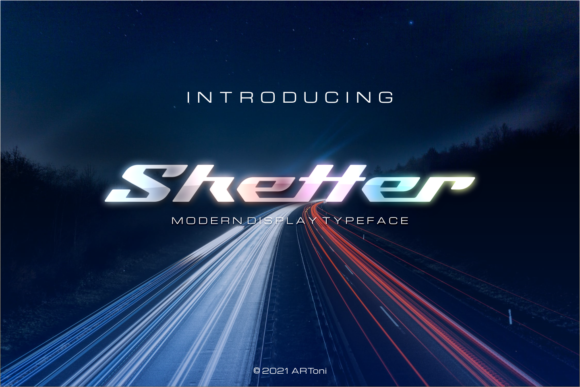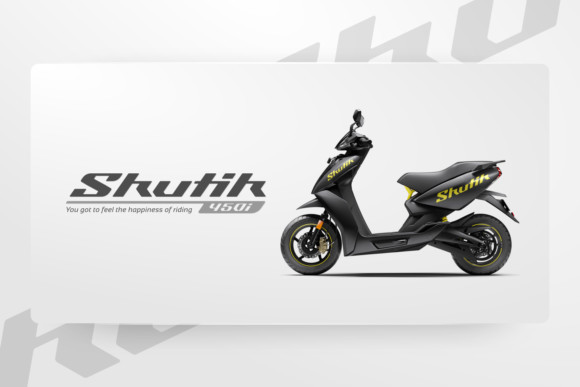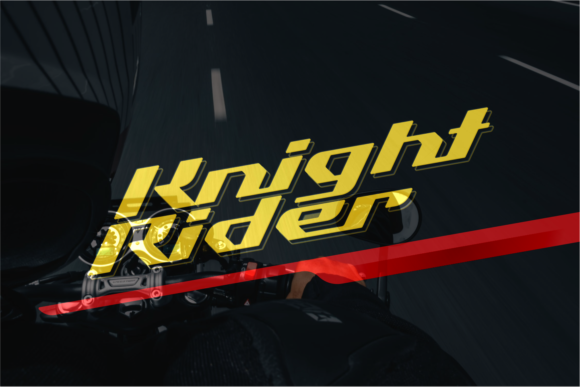
Sketter Font
Sketter FontSketter is modern display typeface inspired by aerodynamic designs.
Fall in love with its incredibly distinct and timeless style and use it to create spectacular designs!